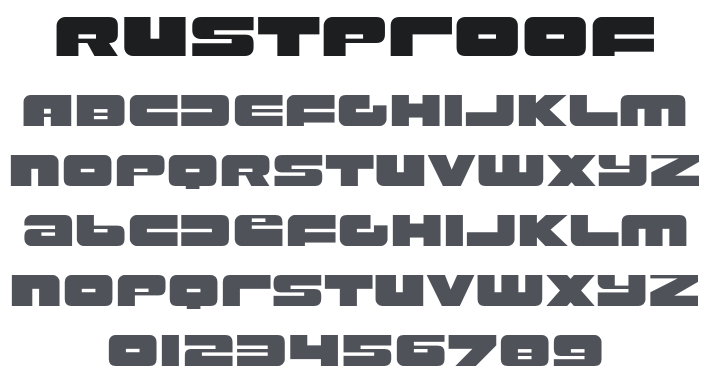
Rustproof Body Font
About Rustproof Body
Rustproof Body is an industrial funk headline typeface inspired by the iconic DMC DeLorean logo — its bold, stainless-steel letterforms carry that unmistakable late-1970s automotive swagger, blending industrial precision with a groovy, chrome-edged confidence. The unconventional proportions give it a distinctive, memorable character. Perfect for automotive branding, retro sci-fi designs, industrial posters, 1980s-themed graphics, and any headline needing cool, machine-age attitude.